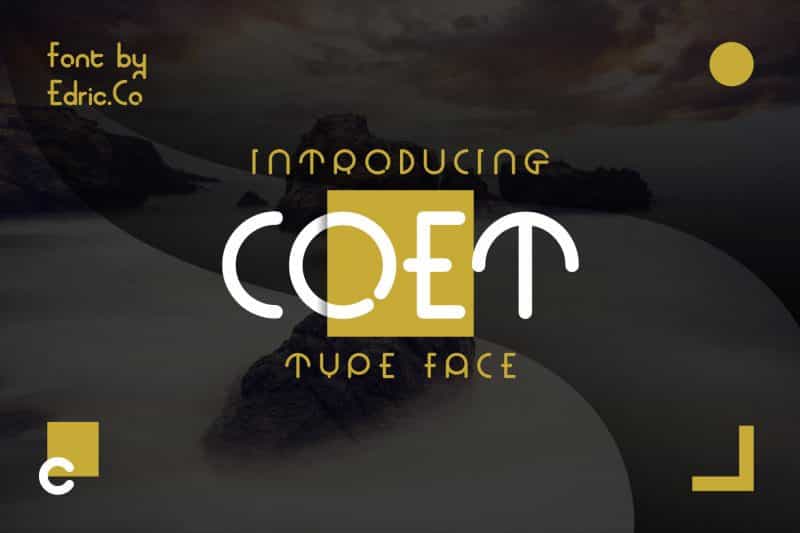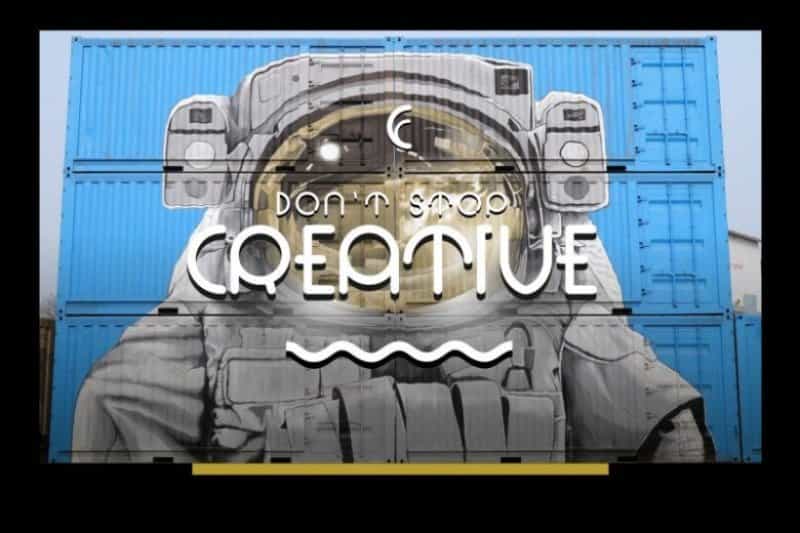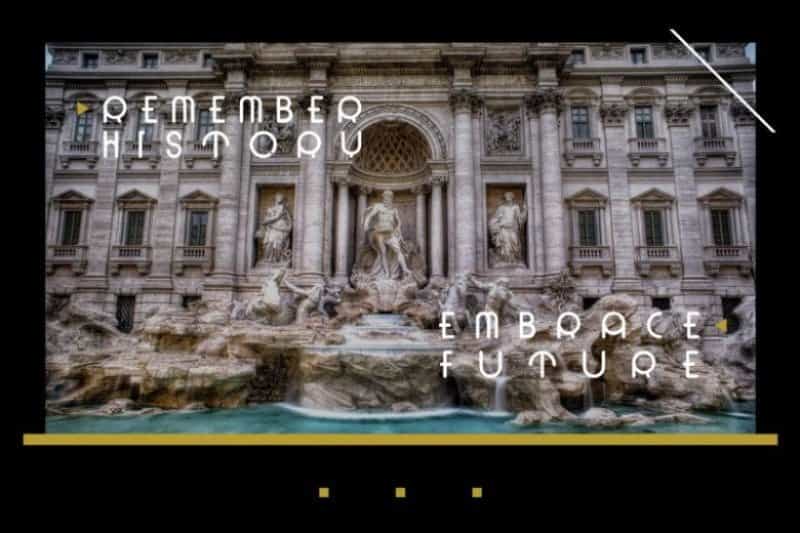
Introducing COET Font Family. It is a Sans Serif with Its Own Style. The main character of this typeface is elegant and stylish in many ways. This font will be great for many things : It is possible to print the following designs: magazine, brochure, invitation cards, flyers and even price tags.